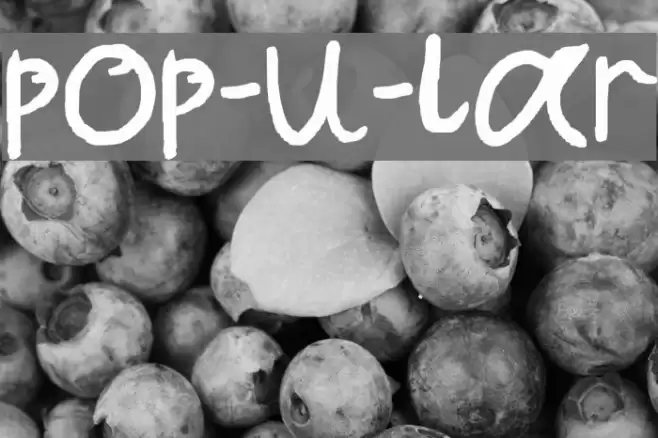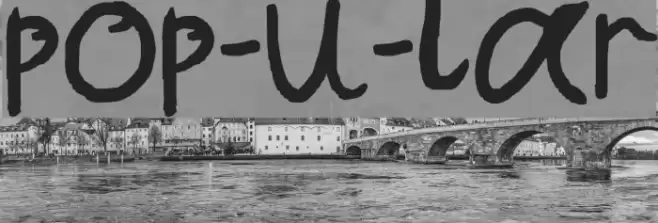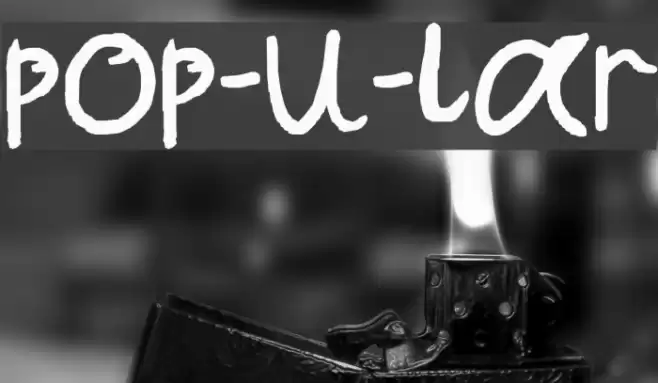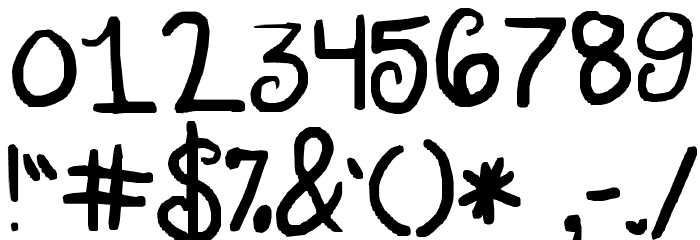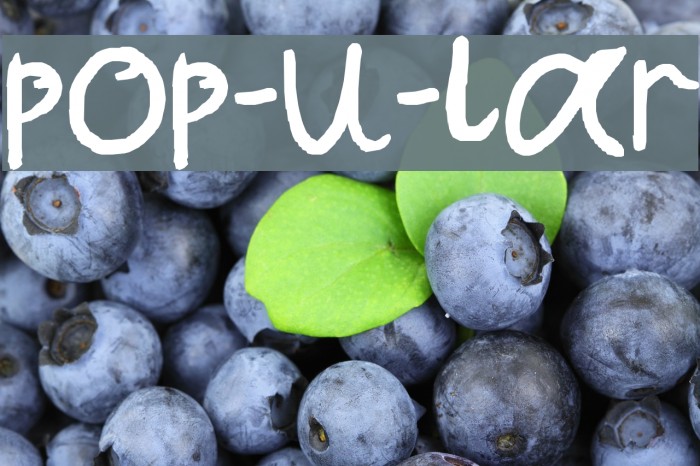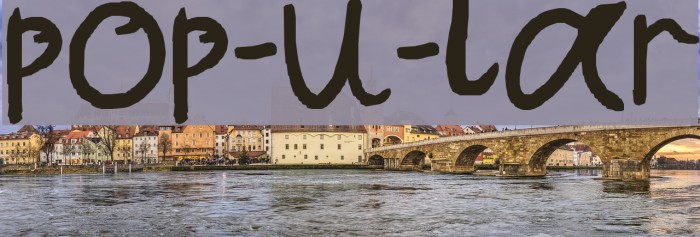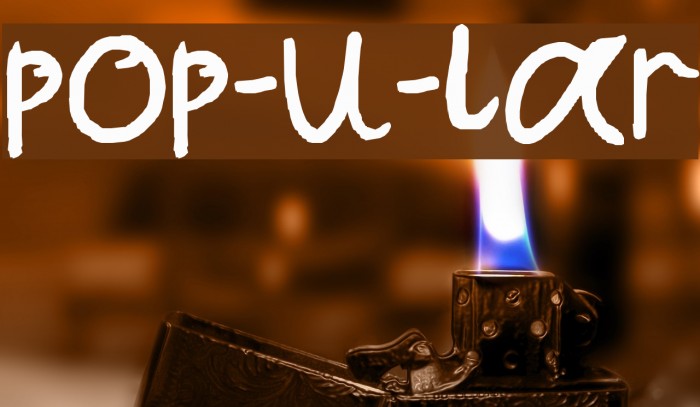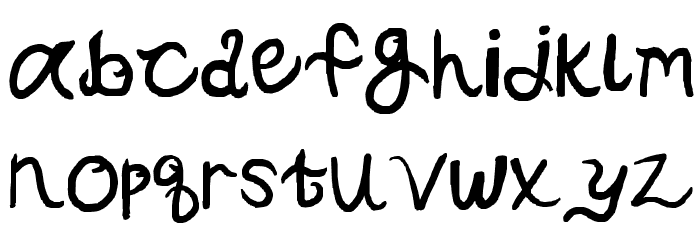
pop-u-lar Font
pop-u-lar Description
This playful and whimsical font features a handwritten style with a unique blend of curves and loops. The uppercase letters are bold and expressive, with some characters having distinctive swirls, such as the 'E' and 'F'. The lowercase letters maintain a consistent flow, adding to the font's casual and friendly appearance. Numbers are clear and slightly rounded, complementing the overall style. Special characters are creatively designed, maintaining the font's lively and informal aesthetic. This font is perfect for projects that require a personal touch or a fun, informal vibe.
A playful, handwritten font with whimsical curves and loops from Uncategorized fonts.
- Proposed Projects: Ideal for greeting cards, children's books, playful branding, and social media graphics.
- Overall Style: Playful
- Use Case: Logos, Headlines, Informal Text